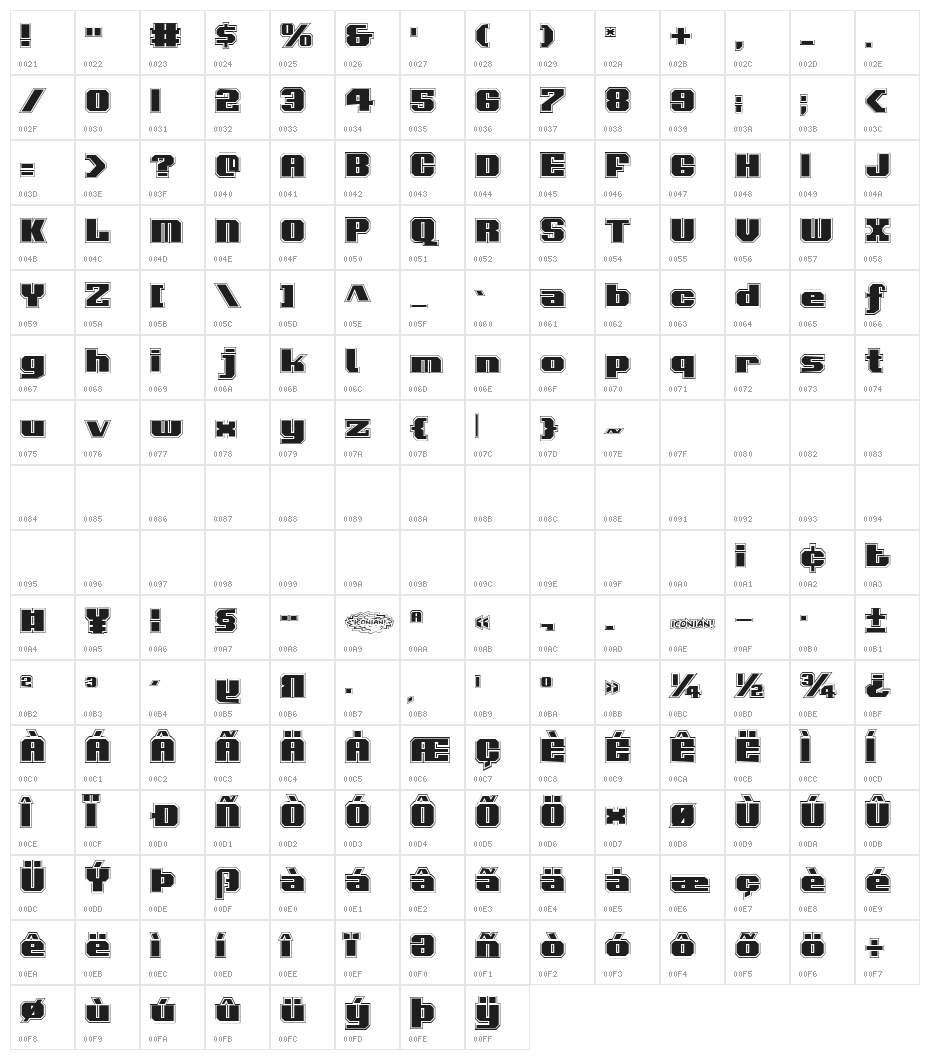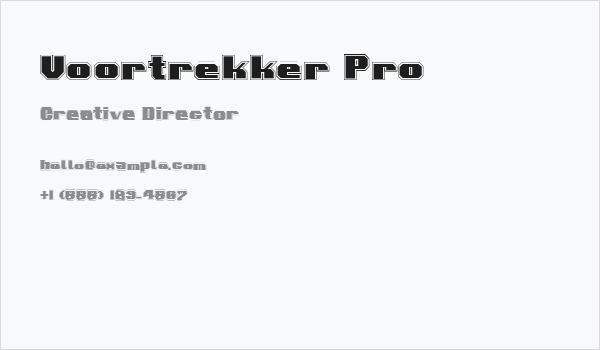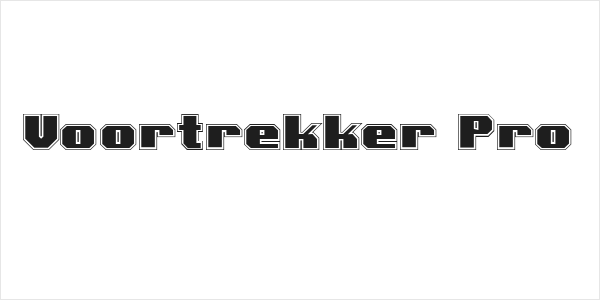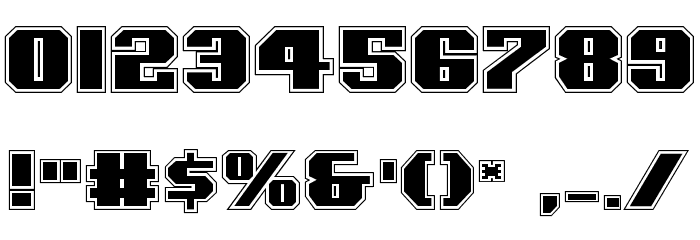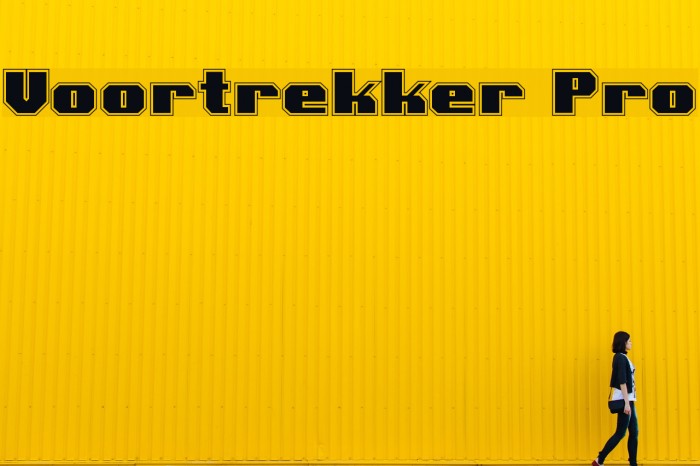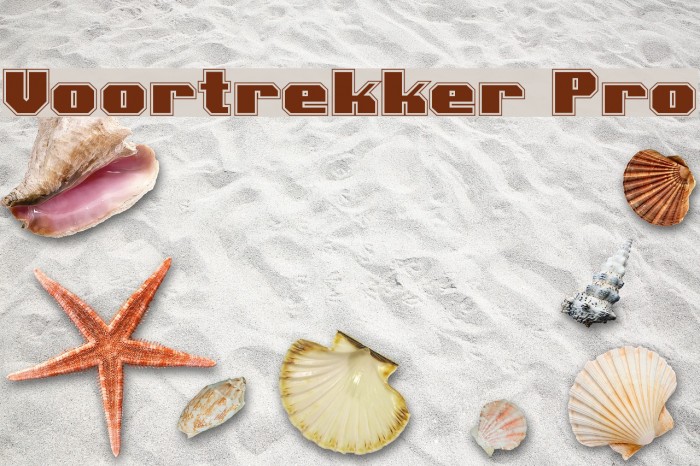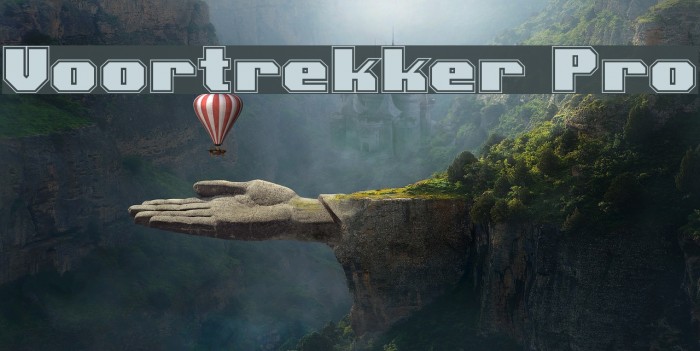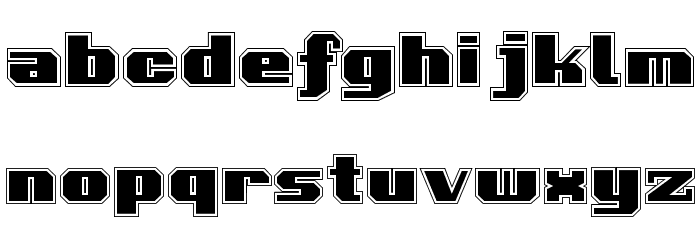
Voortrekker Pro Font
Voortrekker Pro Description
This font features a bold, geometric design with a strong presence. The characters are blocky and angular, with a distinct outline that adds depth and dimension. The uppercase and lowercase letters maintain a consistent style, emphasizing uniformity and structure. Numbers and special characters follow the same design principles, ensuring a cohesive look across all glyphs. The font's boldness and unique style make it ideal for attention-grabbing designs.
| Proposed Projects | Ideal for posters, logos, and branding materials that require a strong, impactful visual presence. |